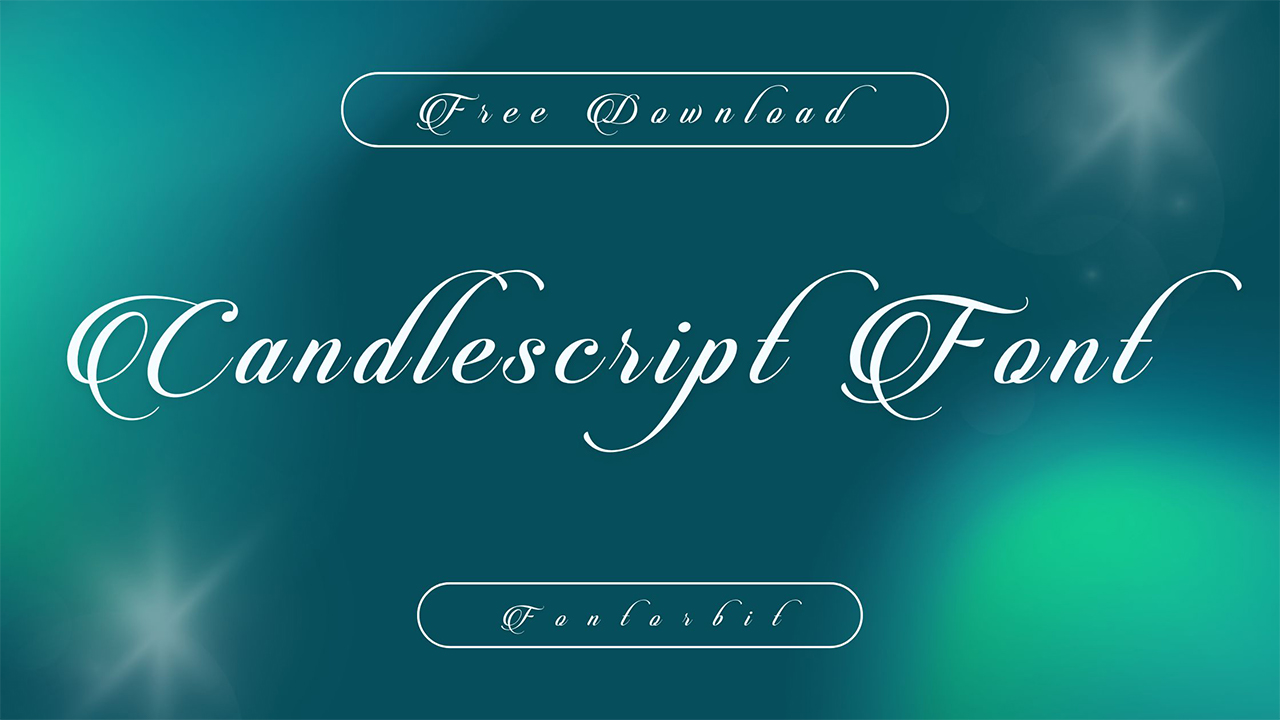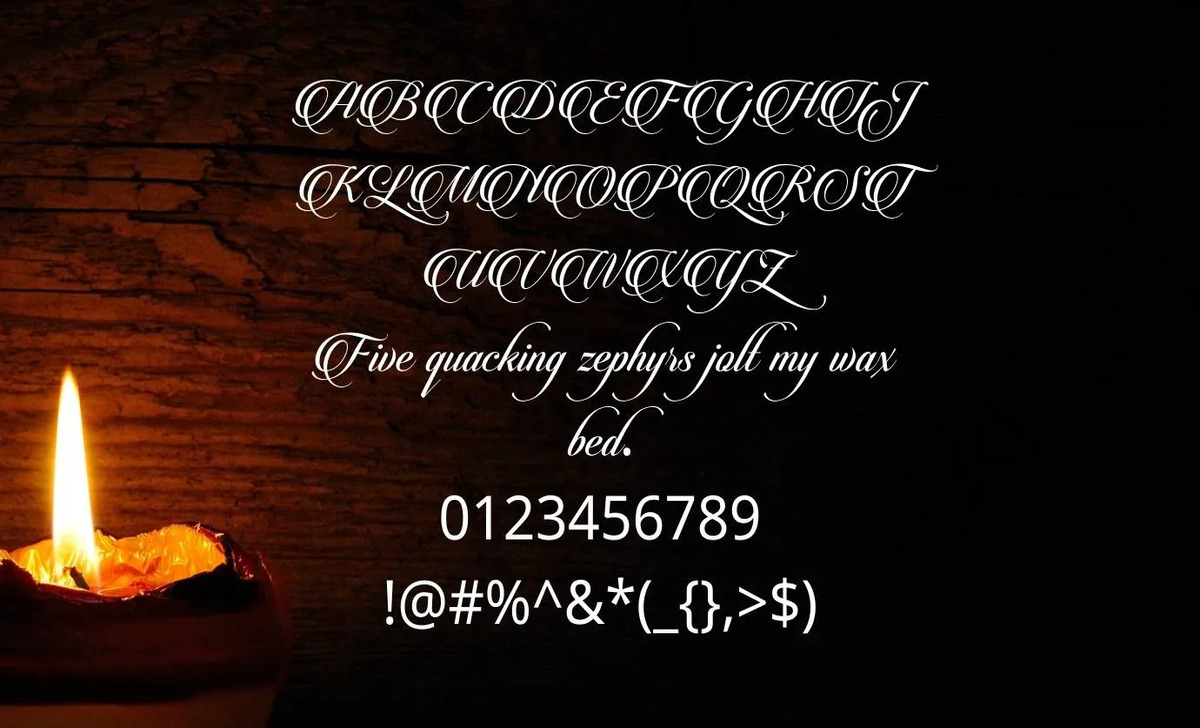
Candlescript is a beautifully crafted handwritten script font designed by M Fairuzulhaq, also known as Ve, and first published by Vast in August 2014. Renowned for its high-detail, smooth, and flowing style, Candlescript is ideal for logotypes, custom typefaces, titles, headers, and various advertising purposes.
With extensive OpenType features, this script font offers over 2750 glyphs, including uppercase, small caps, numerals, and punctuation. It supports standard, discretionary, and contextual ligatures, stylistic and titling alternates, plus thousands of decorative swashes. Candlescript comes in multiple styles, including:
- Candlescript Regular
- Candlescript Italic
- Candlescript Pro
- Candlescript Neue Basic
This versatile and elegant font is suitable for various design needs, like:
- Logotypes
- Titles
- Advertisements
- Totes and apparel
- Home decor items
Candlescript frequently appears in high-end branding, eye-catching headlines, and stylish titles. Its detailed and flowing design makes it perfect for professional layouts, whether in print or digital formats. It adds a sophisticated touch to everything from marketing materials to fashion items (totes, pillows, dresses, and more).
Candlescript is a top choice for designers seeking a high-detail, elegant script font that combines classic calligraphy with modern design precision. Its extensive glyph set and adaptability make it perfect for a wide range of creative applications.
Candlescript aligns with trends emphasizing elegant, flowing script fonts for high-end branding, sophisticated event invitations, and modern, stylish advertisements.
Candlescript features over 2750 glyphs, including uppercase, smallcaps, numerals, and extensive OpenType features like ligatures, alternates, and swashes for detailed, elegant designs.
Yes, Candlescript is ideal for wedding invitations due to its elegant, flowing style and high detail, adding a sophisticated touch to formal event stationery.